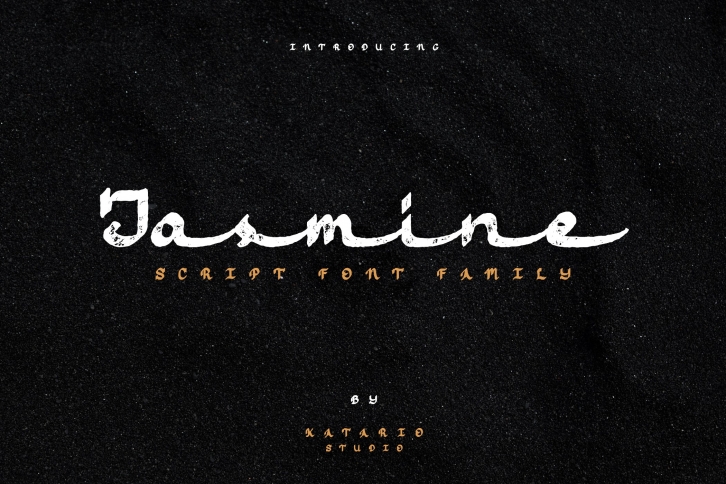
Jasmine Script is a beautiful font that was designed by Katario. It's a great choice for designers and creatives who need such a font. It was released on September 18, 2019 and the file size is 20.2 MB. Jasmine Script may give a more youthful, expressive and casual look to your project. It is a very beautiful, refined, elegant, and high-quality font.